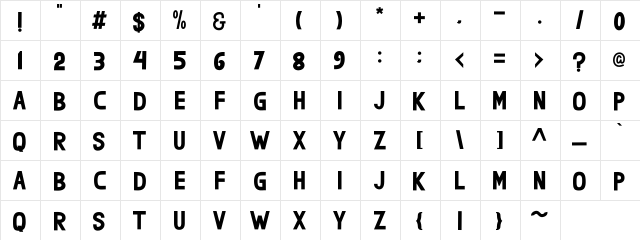
milies Sans
| Style | Sans |
| Foundry | Nur Solikh / Astageni Type. |
| Designer | nur solikh |
Design Context for milies Typeface
milies offers clean, dependable letterforms without strong stylistic allegiance, making it a practical choice for designers who need flexibility.